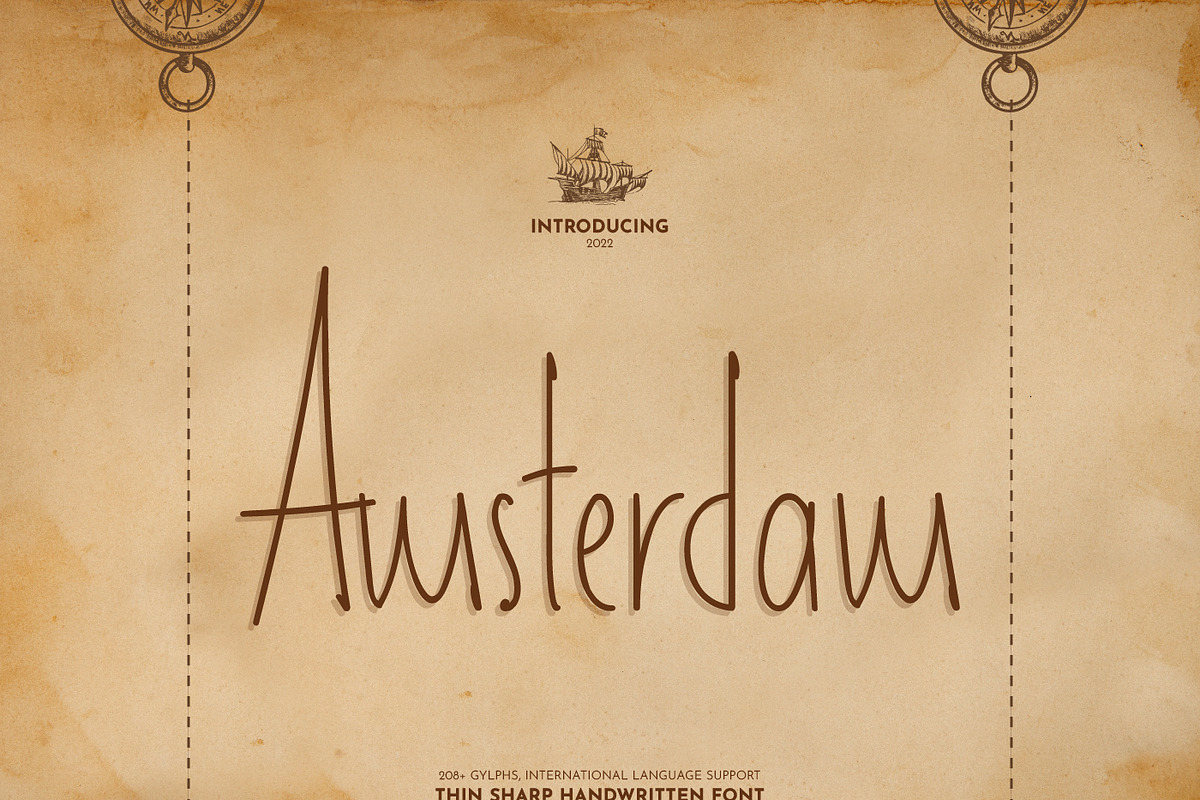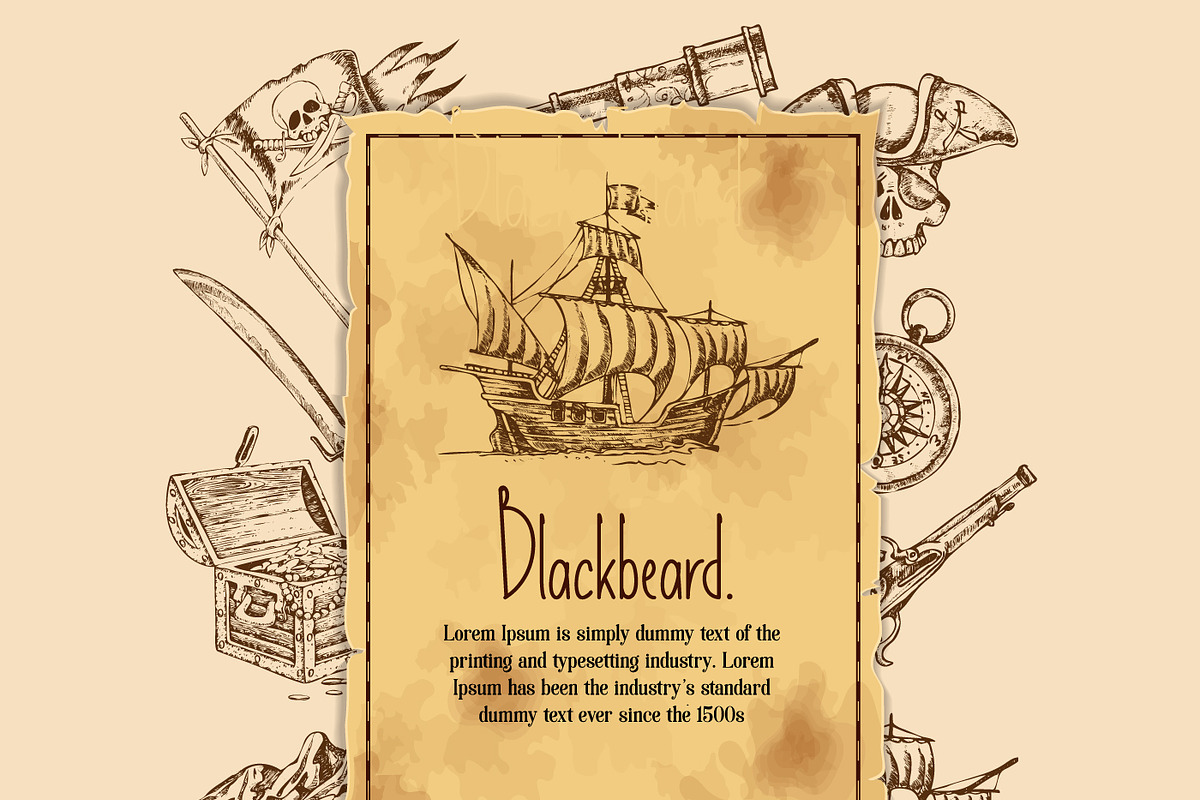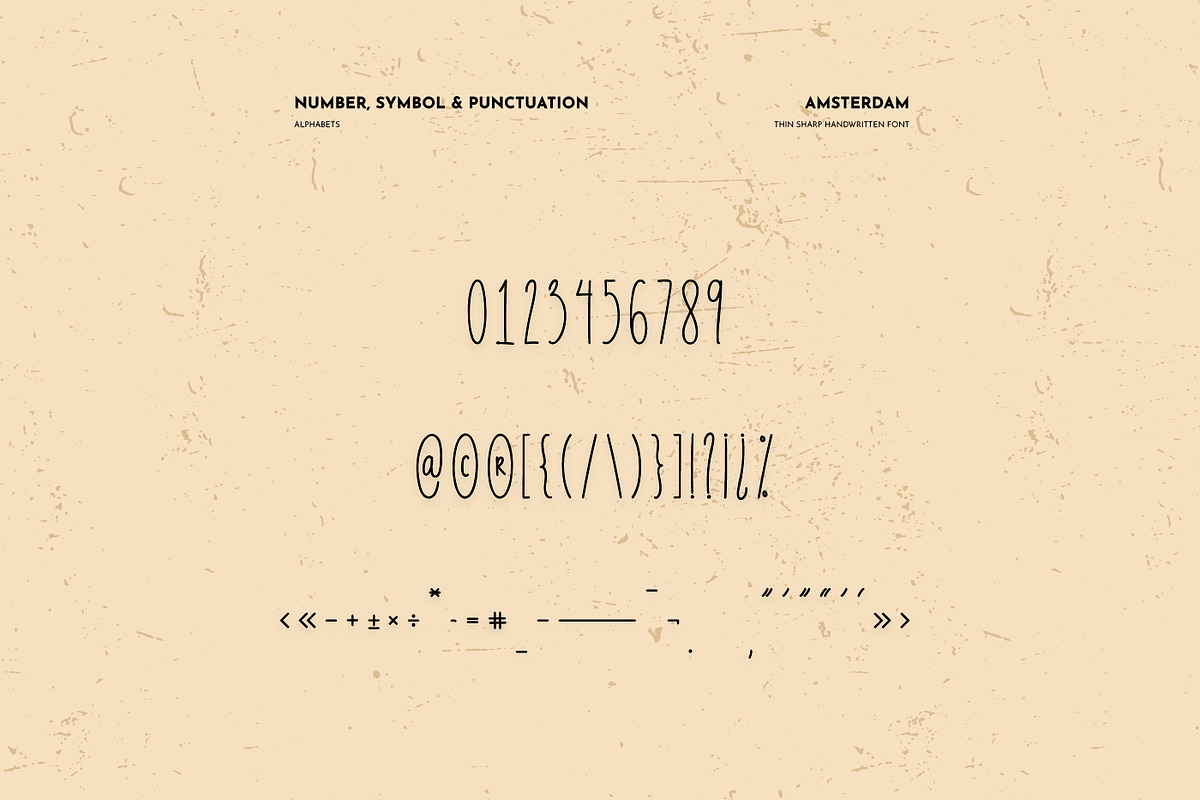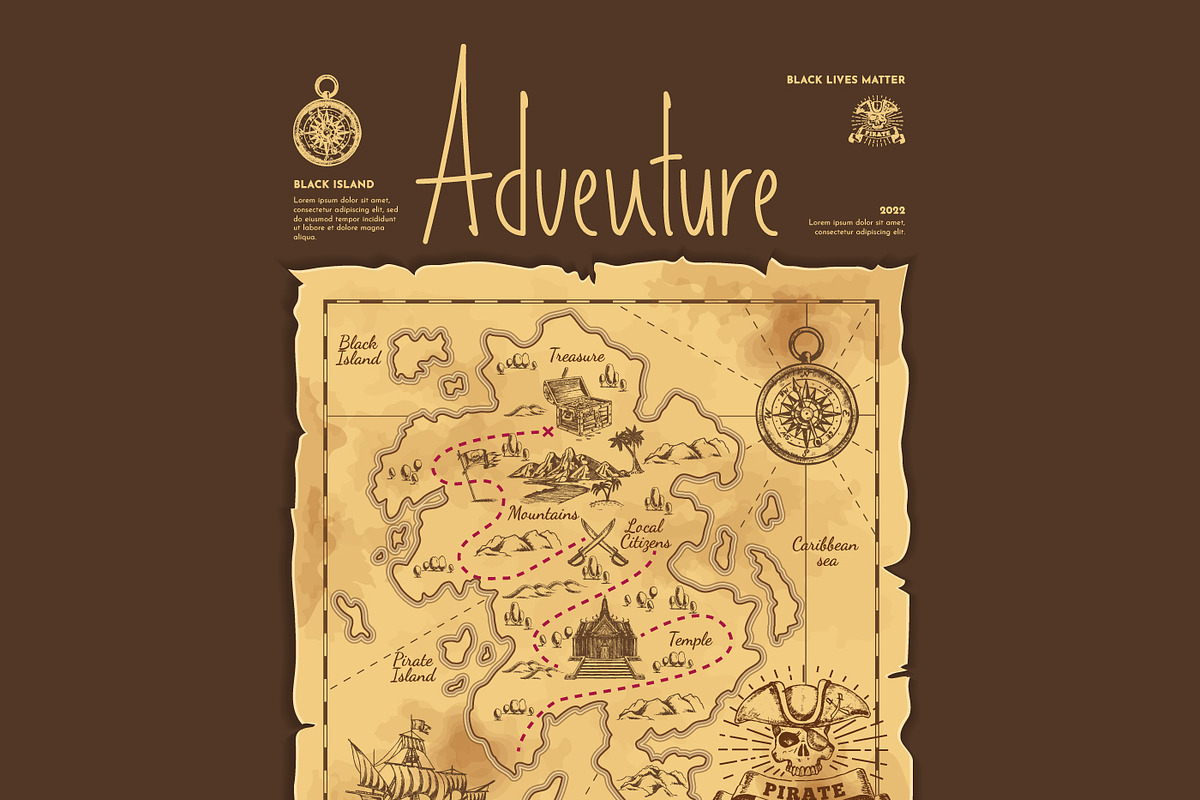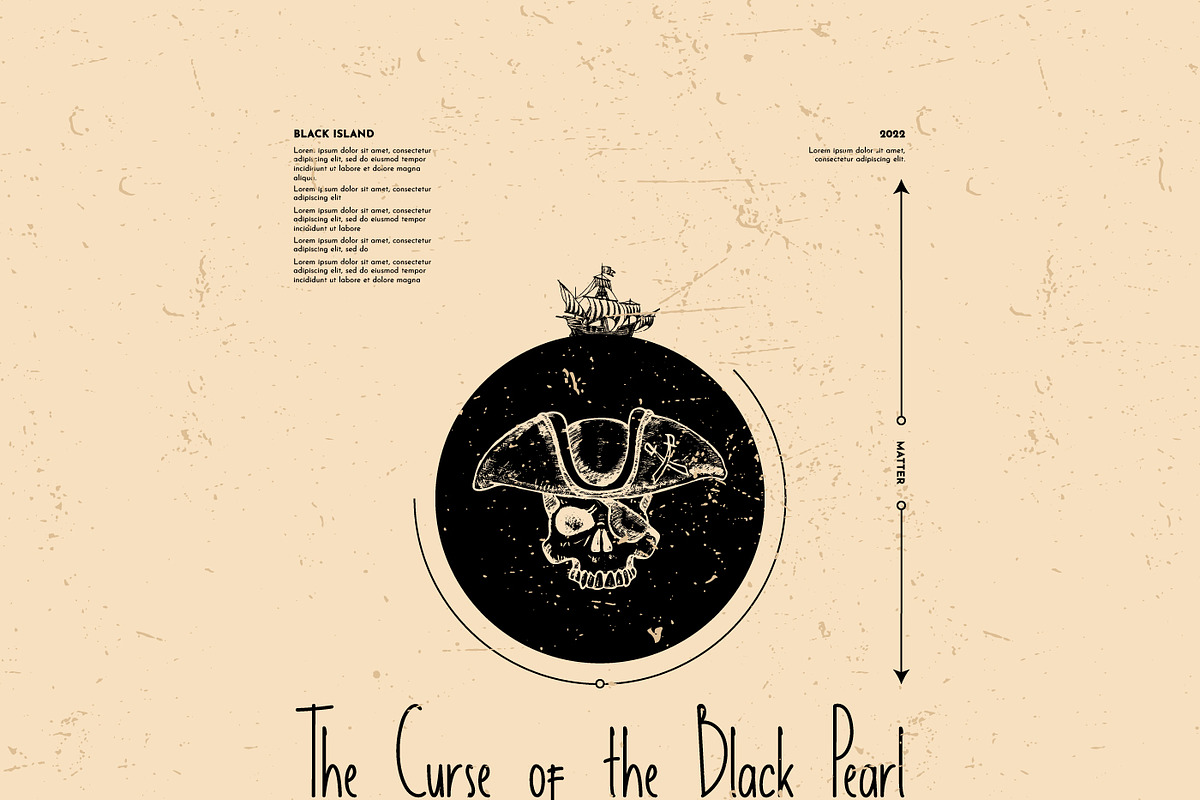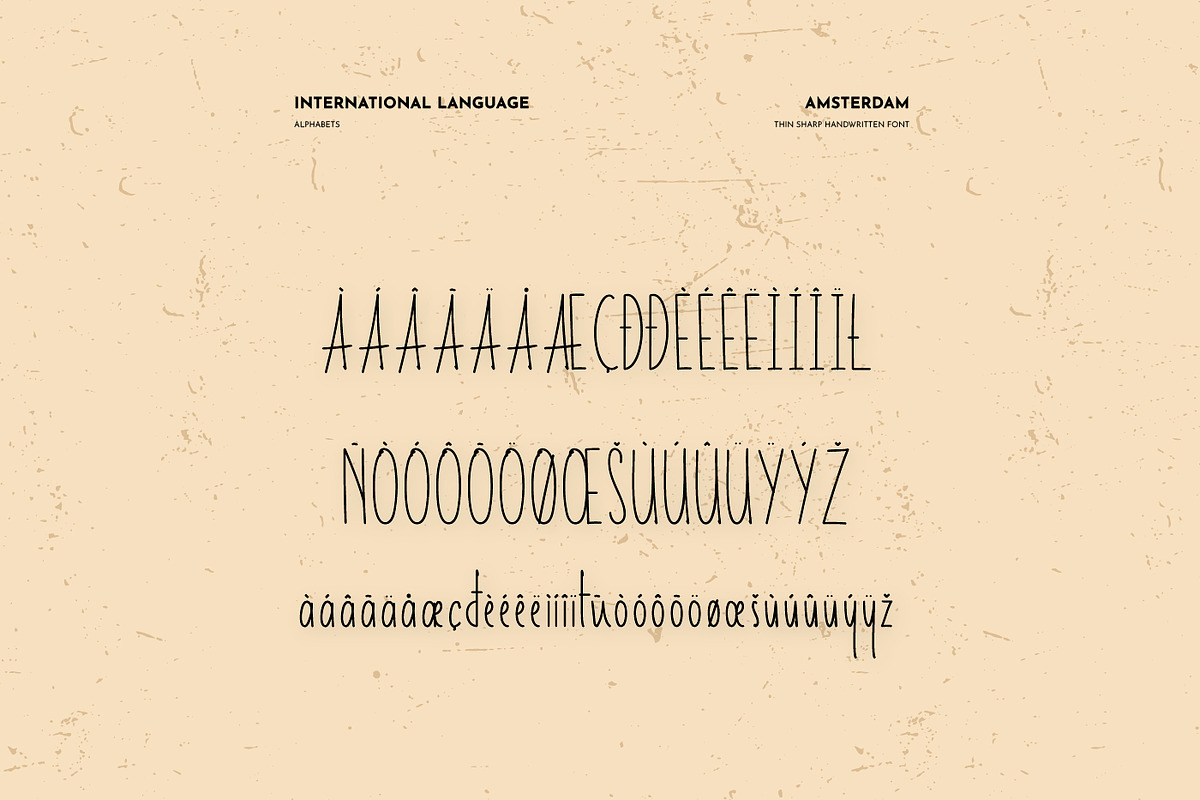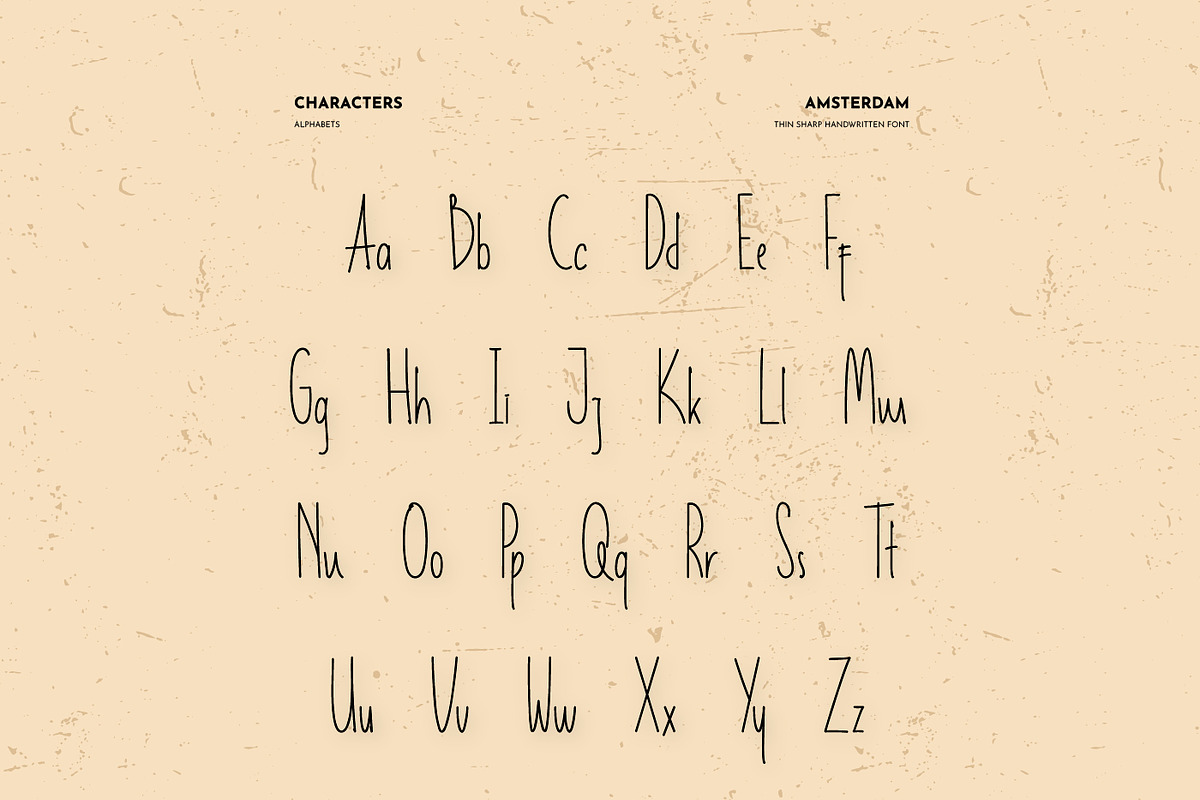
Amsterdam Display Handwritten
Amsterdam is one of Display Handwritten Font. With sharp accent, "Amsterdam" is look like a real handwriting. Bring retro and old feels, this font is appropriate using for lettering, invitations, templates, books, cards, and more projects that mostly need handwriting and old taste on it.
- OpenType Features (Stylistic Set)